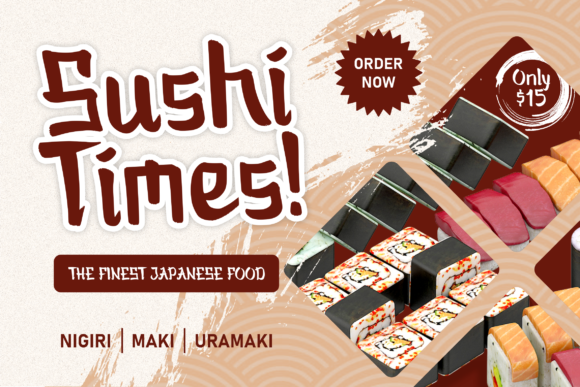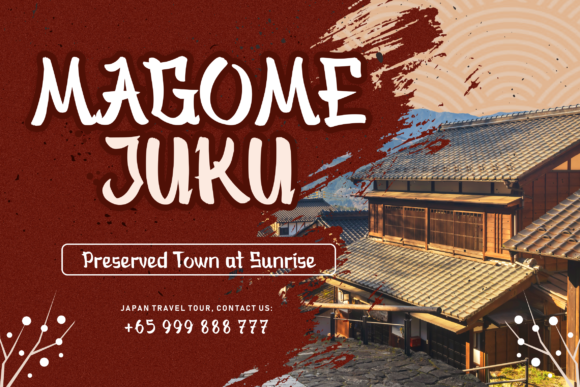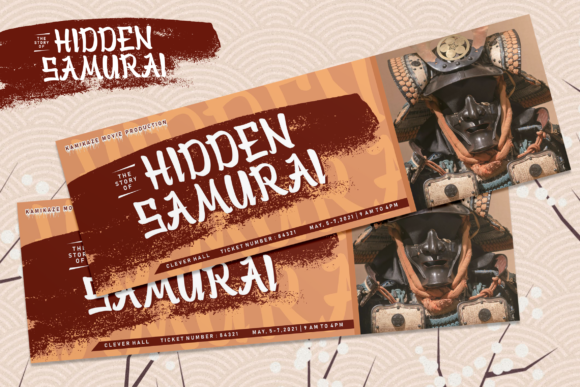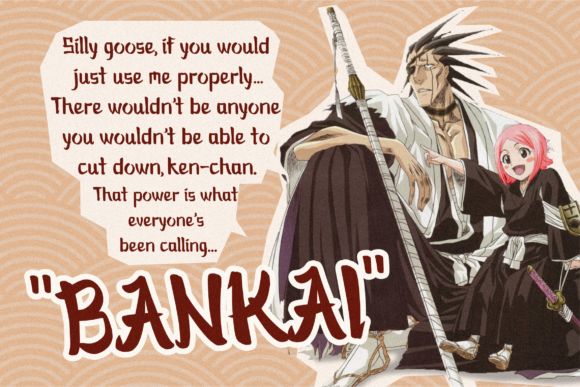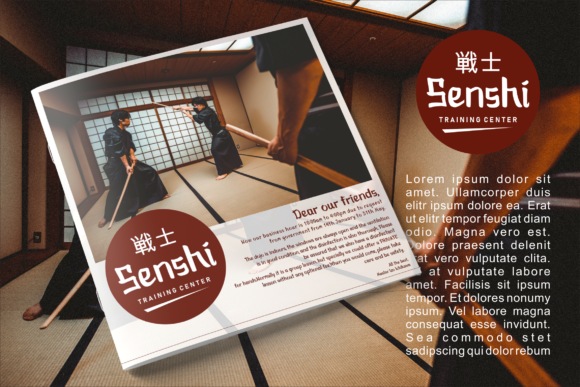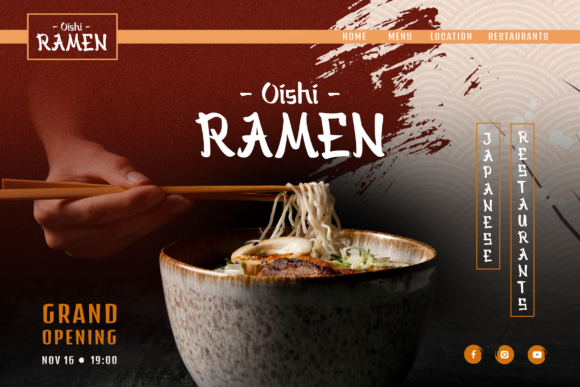
Discover the Quirkiness of Bankai Font: A Unique Display Font for Creative Projects
In the world of typography, fonts play a crucial role in making or breaking the visual appeal of a design. With thousands of fonts available, it can be overwhelming to choose the right one for your project. However, if you’re looking for a font that stands out from the crowd, look no further than Bankai Font. This unique and interesting display font is a great choice for a wide variety of contexts, and its quirky personality is sure to capture the attention of your audience.
What is Bankai Font?
Bankai Font is a display font that boasts a distinctive and eye-catching design. Its quirky style makes it perfect for designers and crafters who want to add a touch of personality to their projects. Whether you’re working on a branding project, creating a poster, or designing a website, Bankai Font is sure to make a statement.
Key Features of Bankai Font
So, what makes Bankai Font so special? Here are some of its key features:
- Unique and quirky design: Bankai Font has a one-of-a-kind design that sets it apart from other fonts.
- Display font: Bankai Font is specifically designed as a display font, making it perfect for headlines, titles, and other prominent text elements.
- Versatile: Despite its quirky design, Bankai Font is surprisingly versatile and can be used in a wide range of contexts.
- Easy to read: Despite its unique design, Bankai Font is still easy to read, making it a great choice for body text as well as headlines.
Uses for Bankai Font
So, what can you use Bankai Font for? The possibilities are endless! Here are some ideas to get you started:
- Branding and logos: Bankai Font’s unique design makes it perfect for branding and logos.
- Posters and flyers: Add a touch of quirkiness to your posters and flyers with Bankai Font.
- Web design: Use Bankai Font to create eye-catching headlines and titles for your website.
- Social media graphics: Bankai Font is perfect for creating social media graphics that stand out from the crowd.
- Crafting and DIY projects: Bankai Font can add a personal touch to your crafting and DIY projects, such as signs, banners, and other decorative items.
Tips for Using Bankai Font
Here are some tips for getting the most out of Bankai Font:
- Use it sparingly: Bankai Font is a bold font, so use it sparingly to avoid overwhelming your design.
- Pair it with a neutral font: Pair Bankai Font with a neutral font to create visual interest and balance.
- Experiment with colors: Bankai Font looks great in a variety of colors, so don’t be afraid to experiment and find the perfect hue for your design.
In conclusion, Bankai Font is a unique and interesting display font that’s perfect for designers and crafters who want to add a touch of quirkiness to their projects. With its bold design and versatile uses, Bankai Font is sure to become a go-to font in your collection. So why not give it a try and see what kind of creative projects you can come up with?
Whether you’re a seasoned designer or a crafting enthusiast, Bankai Font is sure to inspire you to create something truly special. So go ahead, download Bankai Font, and let your creativity shine!